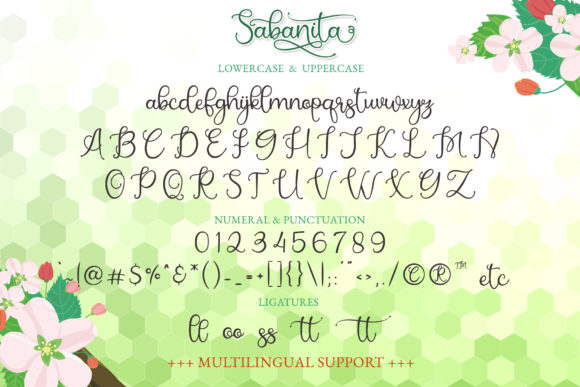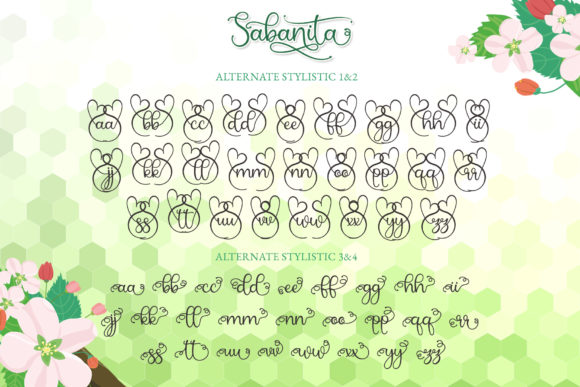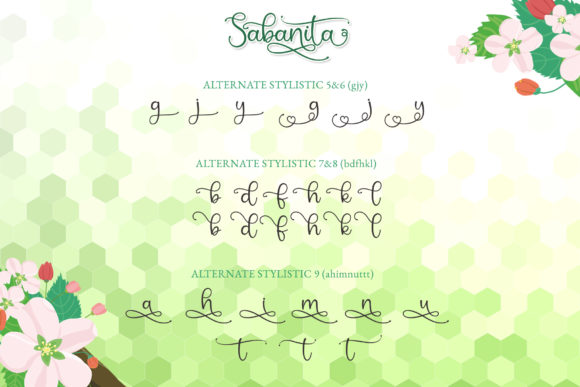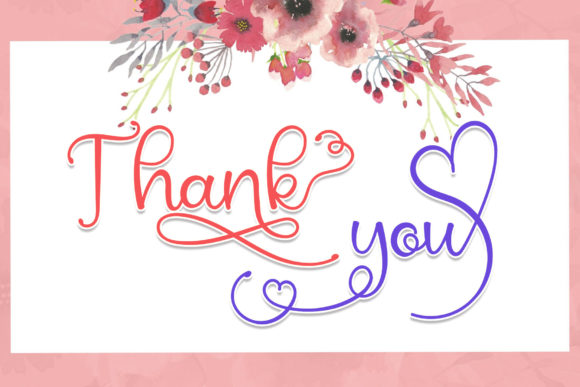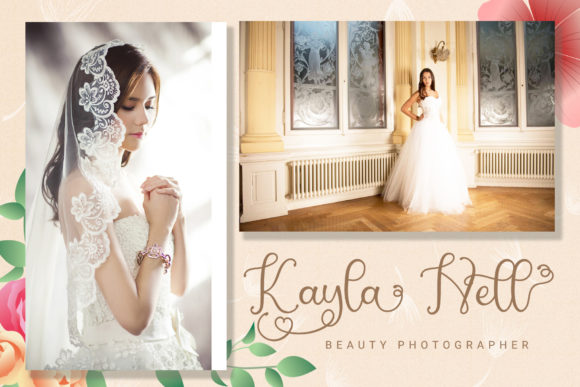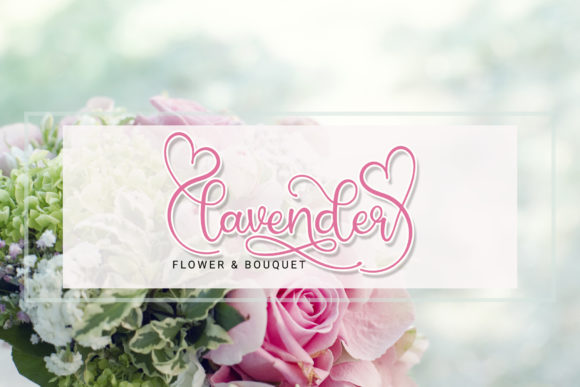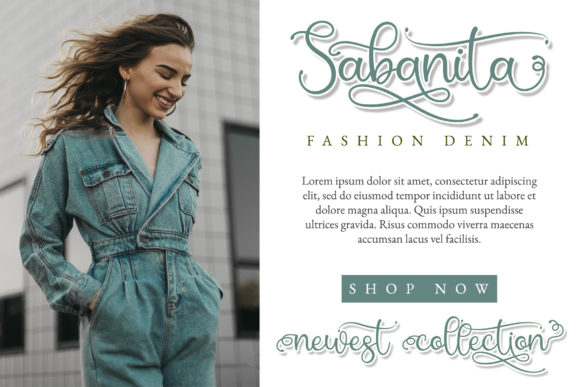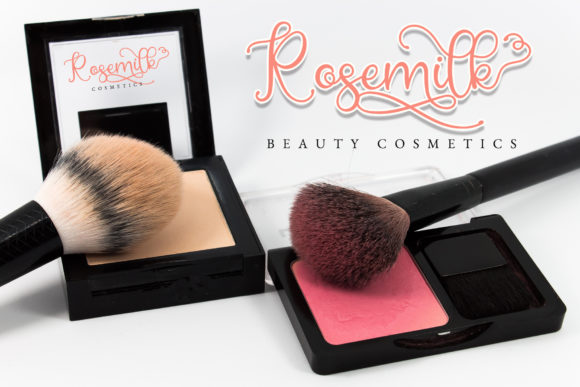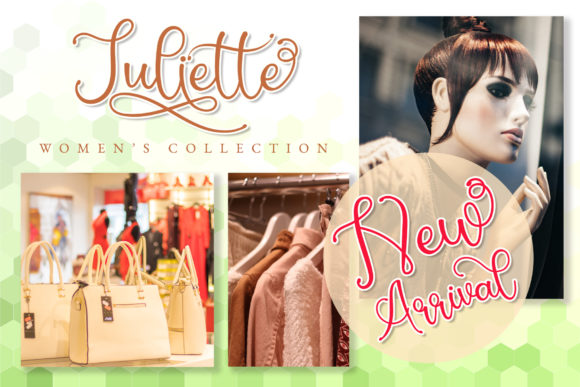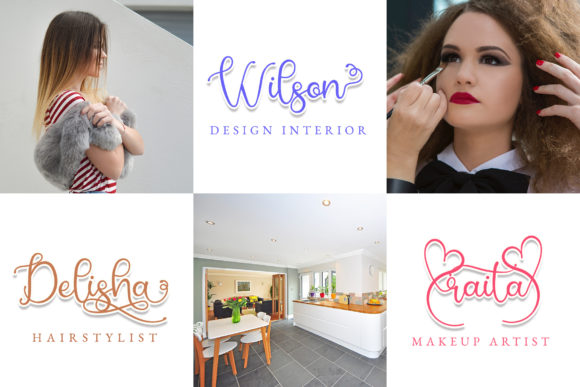
Sabanita Font
About Sabanita Font
Sabanita is a cute, elegant calligraphy font. It has many swashes that will make your design stand out! Get inspired by this authentic feel.